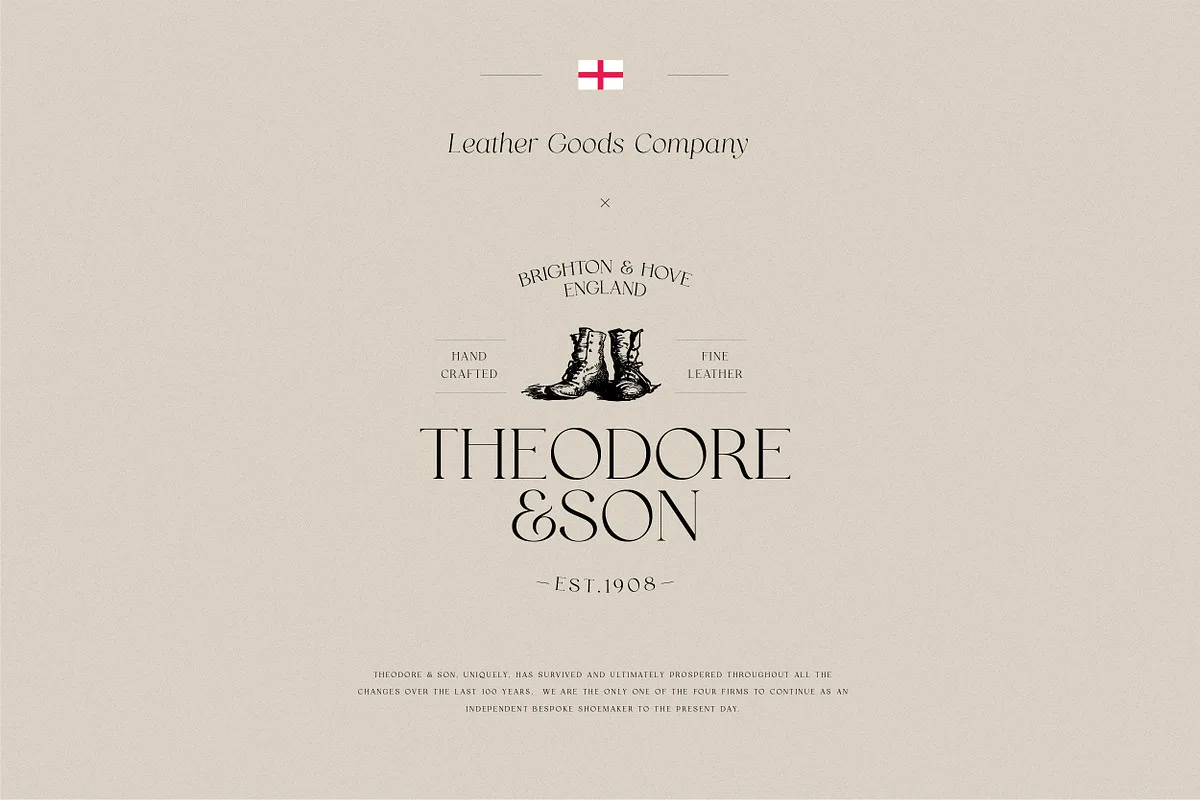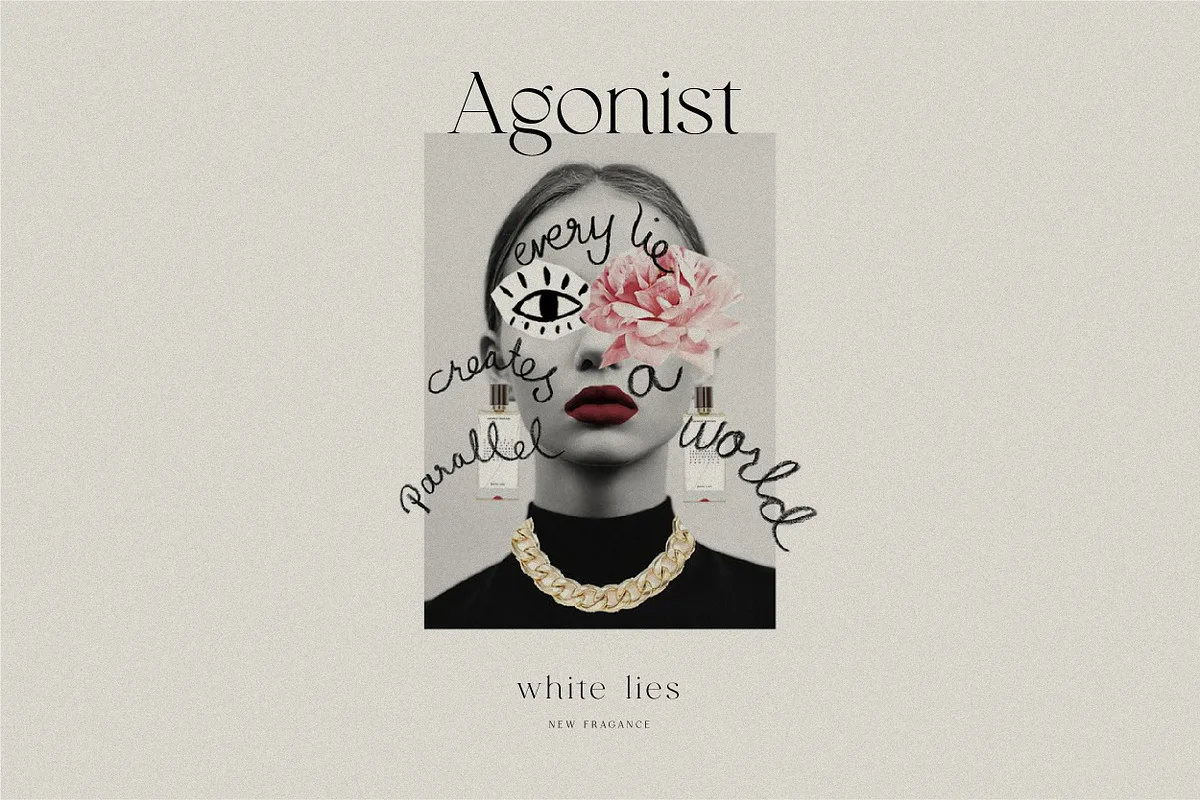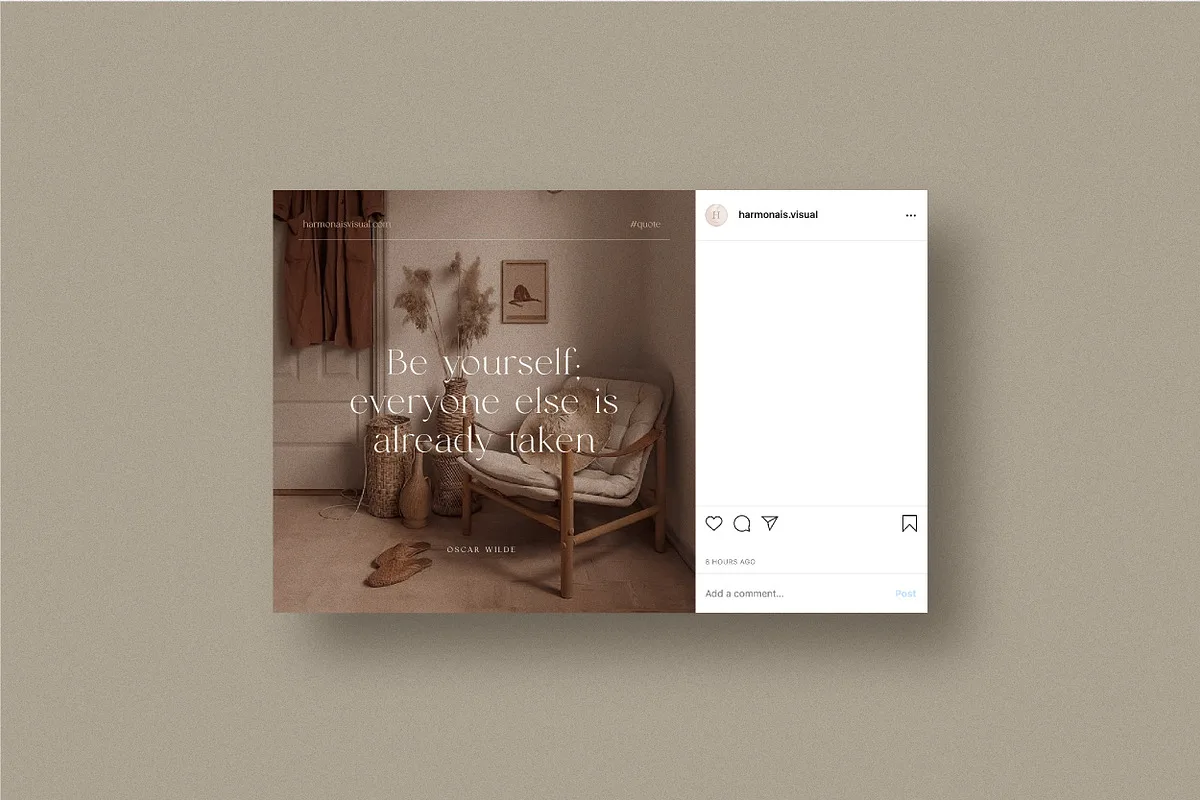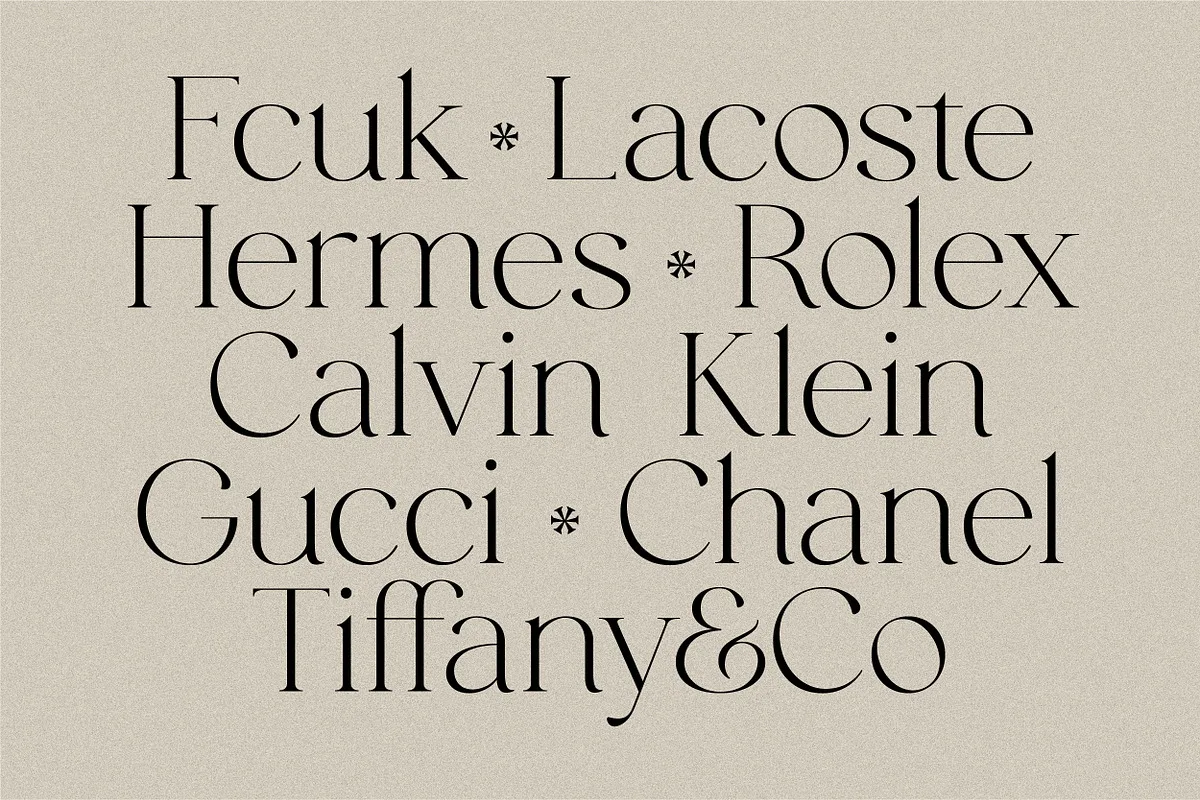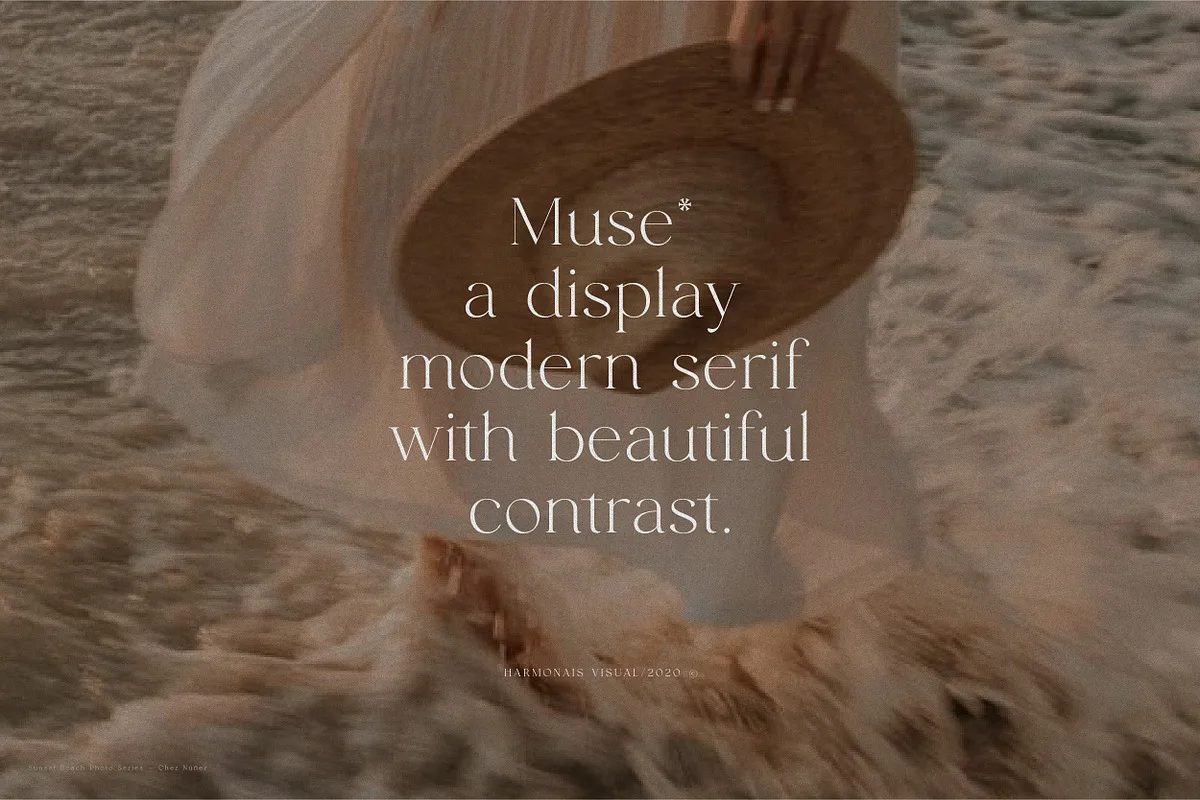
HV Muse is a chic & elegant display of modern serif with beautiful contrast. Specially designed for fashion-themed projects, perfectly suitable for creating elegant, chic, lifestyle designs such as logos, titles, and magazines, and more.
The font features standard ligatures. Now you have more choices when using Muse for typography thanks to the recently added Muse Italic.
HV Muse Serif Font